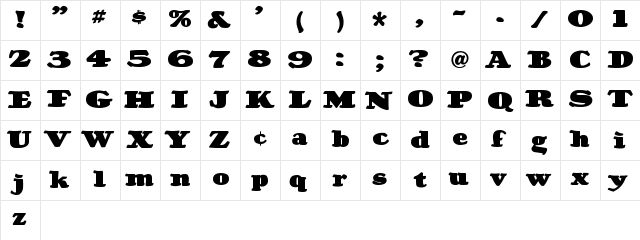
A&S Pen & Ink Roman Bold
| Foundry | SIGNFONTS- Art&Sign studio |
Design Context for A&S Pen & Ink Roman Typeface
A&S Pen & Ink Roman offers clean, dependable letterforms without strong stylistic allegiance, making it a practical choice for designers who need flexibility. Its bold stroke weight gives it real presence on the page.